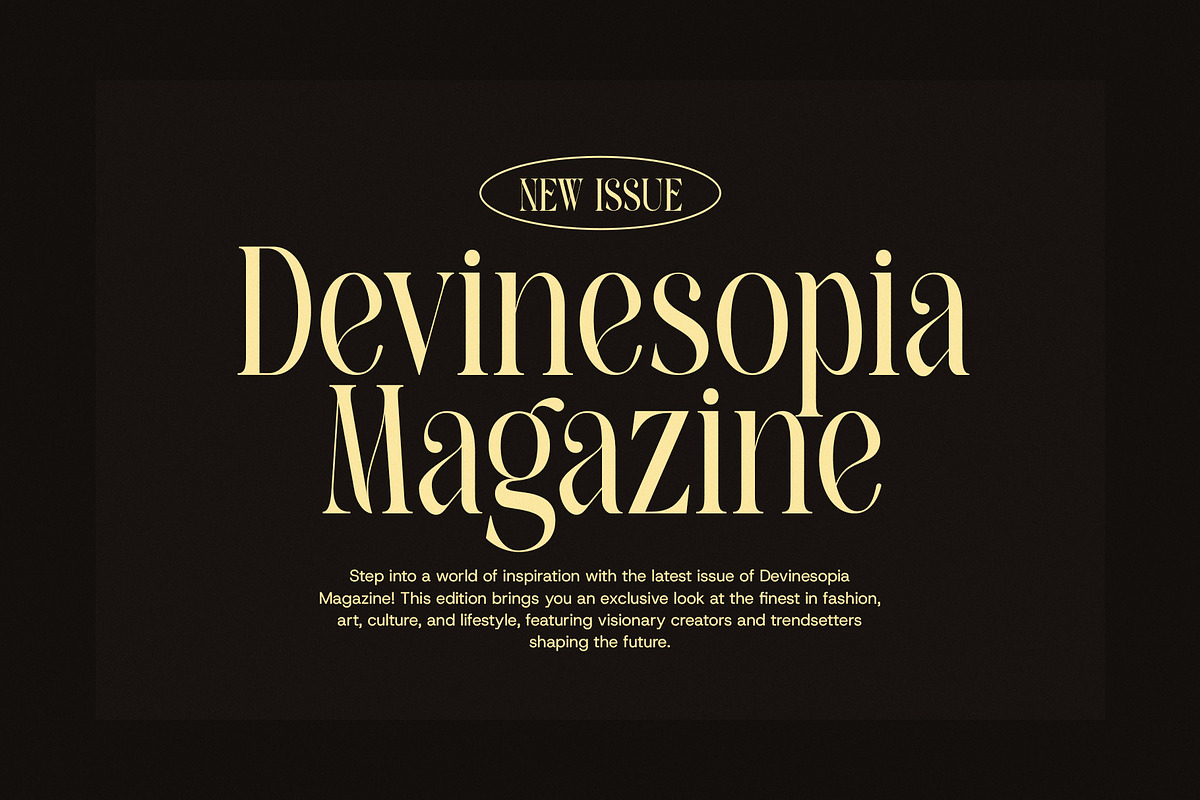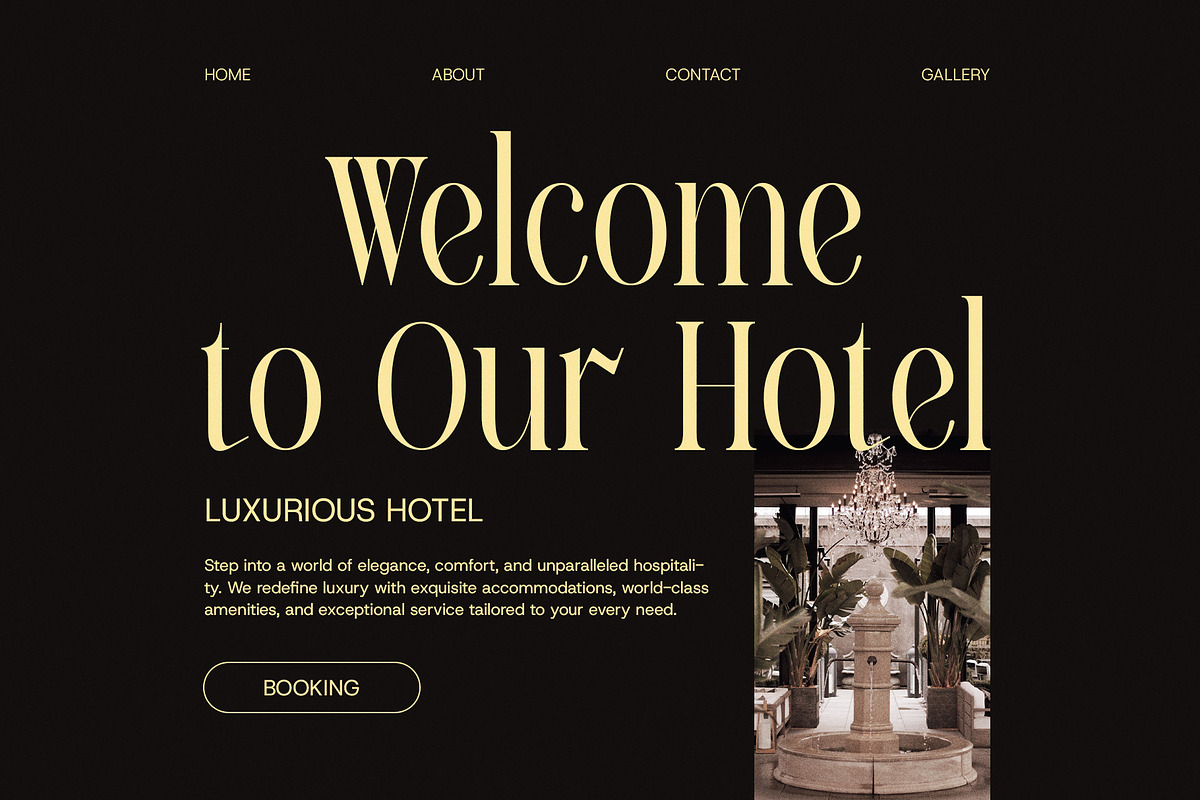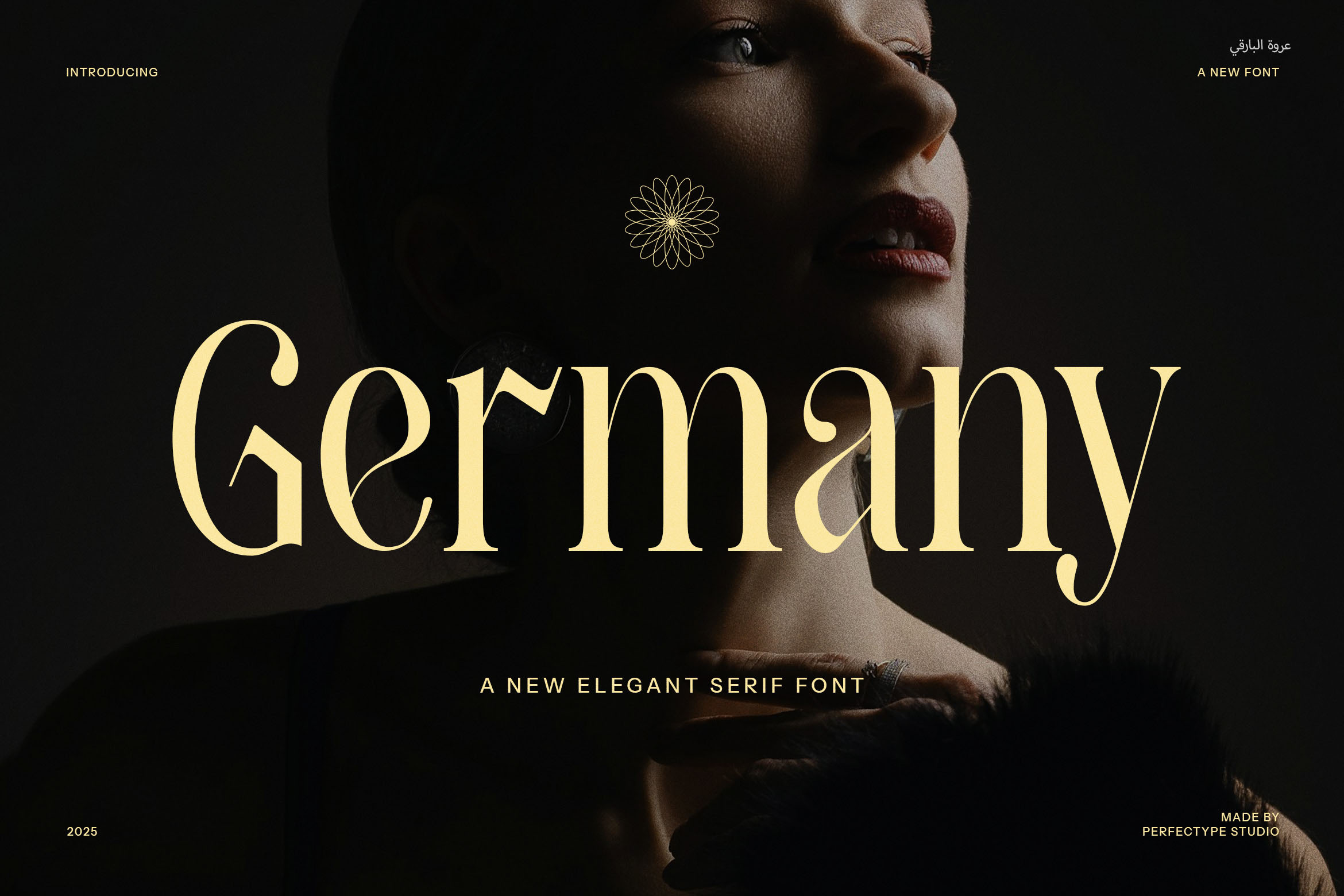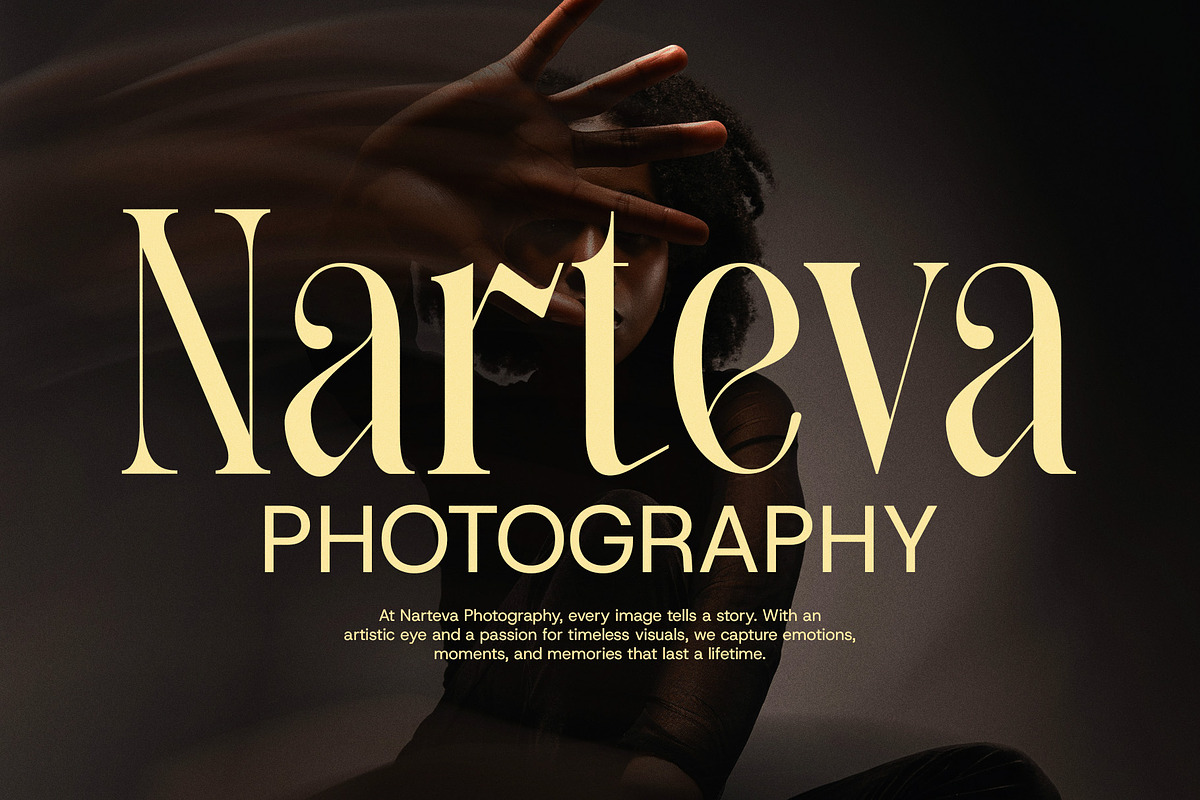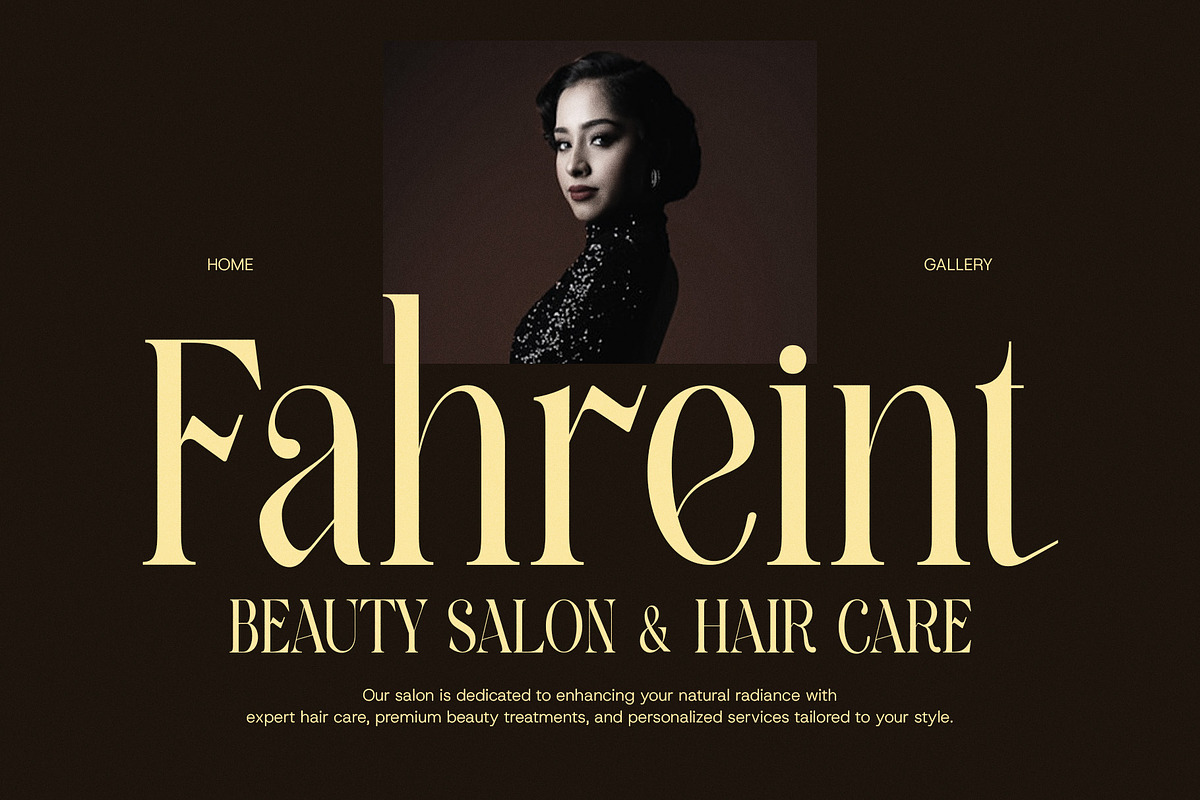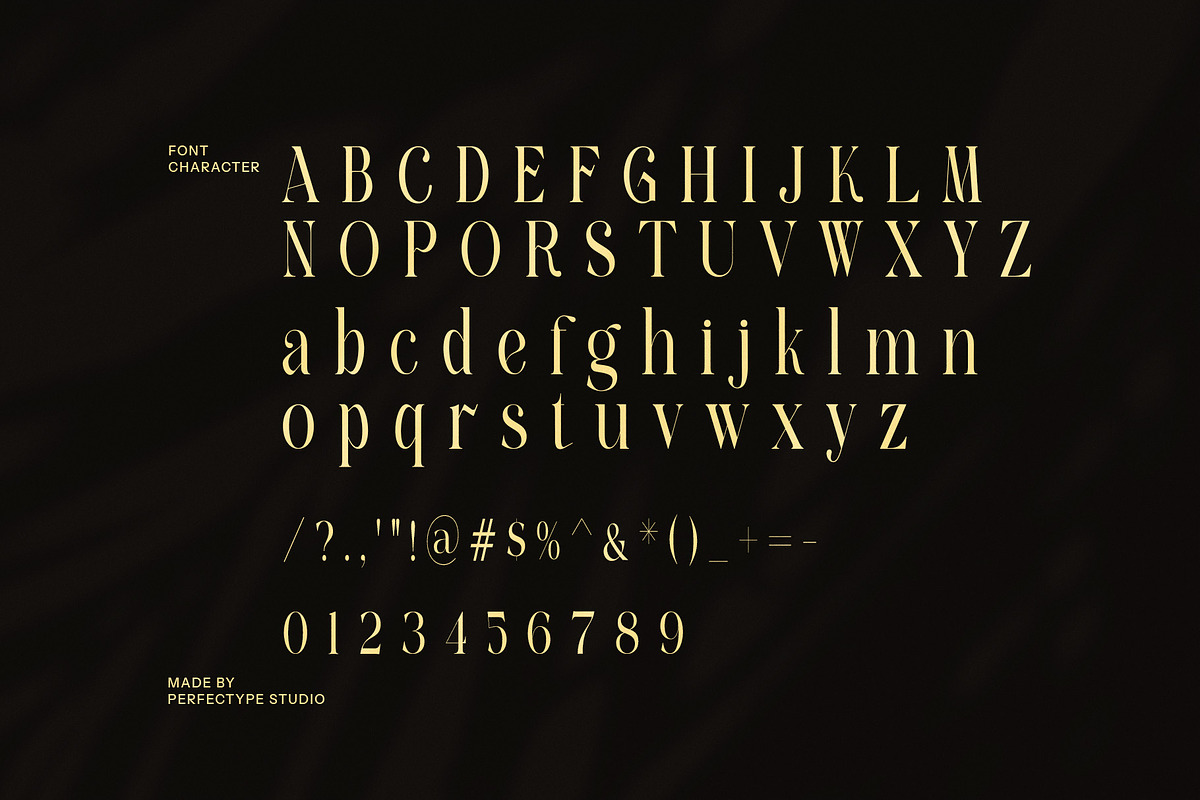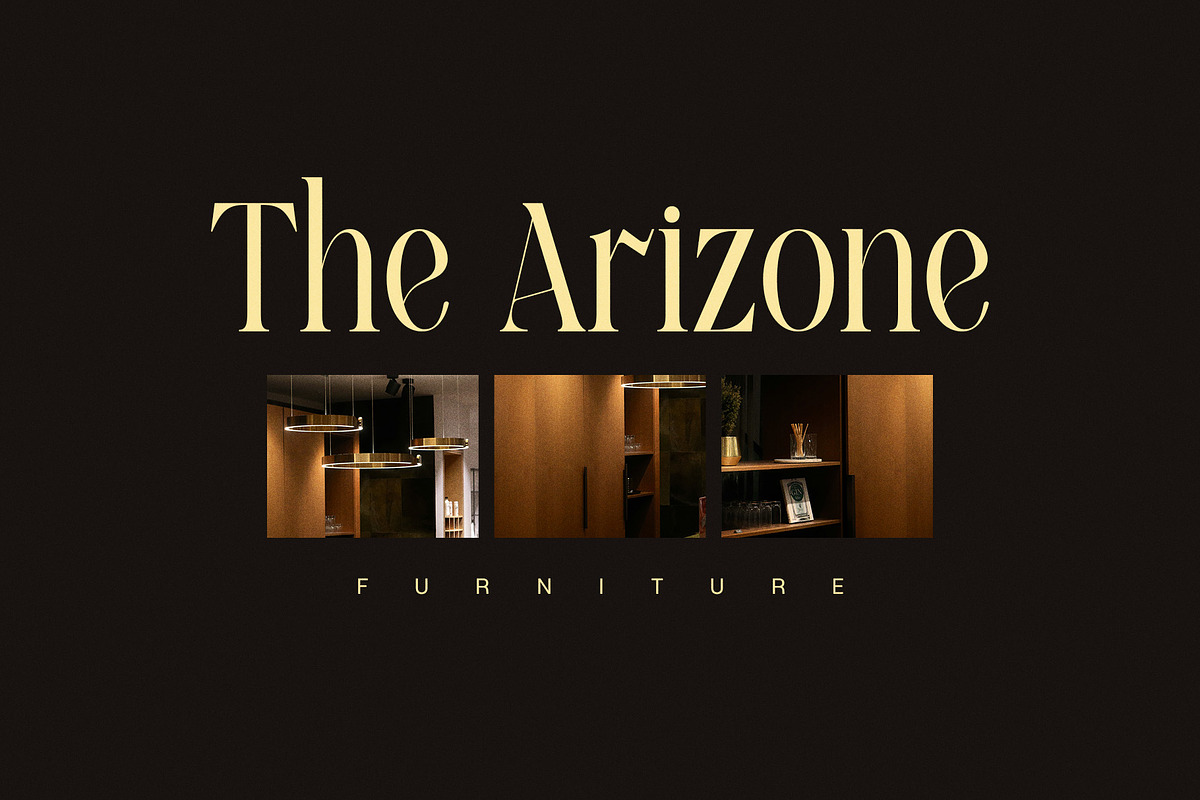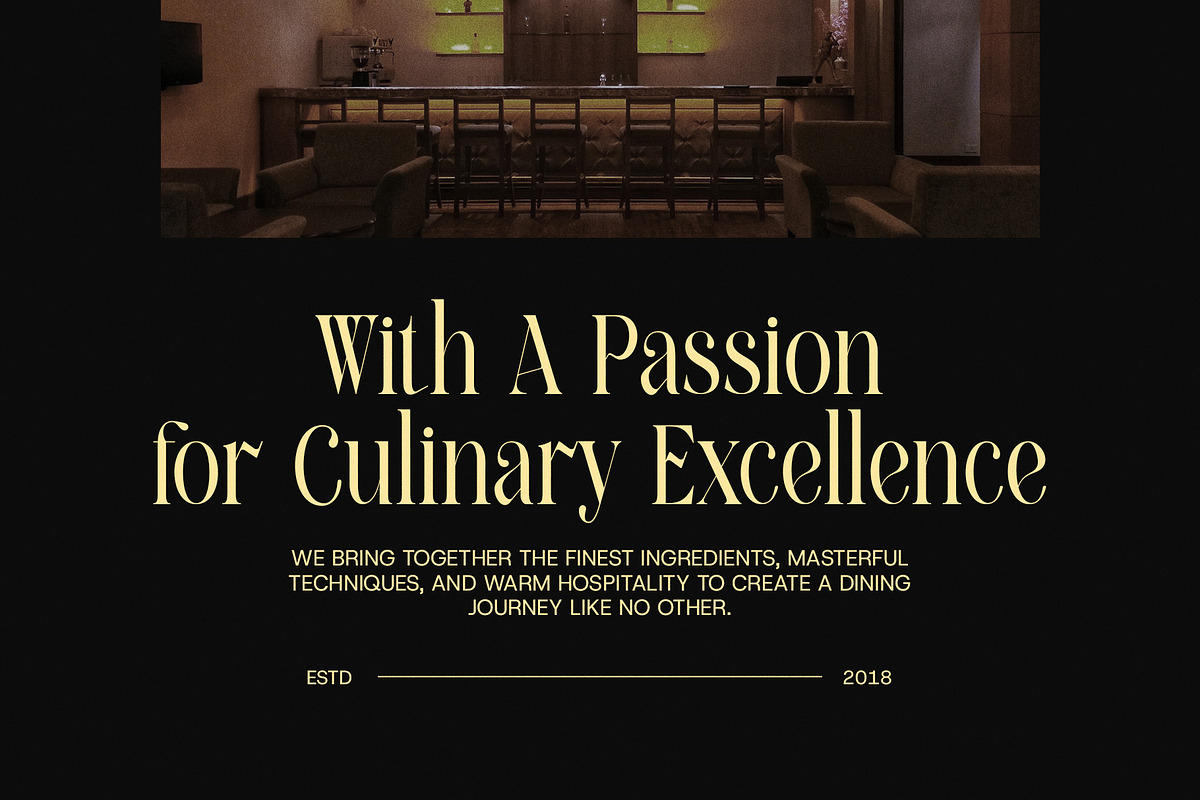
Germany Elegant Serif Font
Germany Elegant Serif Font is a stunning and contemporary serif typeface that seamlessly blends classic sophistication with modern charm. With its refined serifs and well-crafted curves, this font is the perfect choice for creating high-end designs that demand attention. Its elegant structure and unique ligatures bring a sense of character and style to any project, offering a premium look without compromising readability.
Ideal for luxury brands, upscale websites, and premium product packaging, Germany Elegant Serif Font stands out in every design setting. Whether used for bold logos, stylish magazine layouts, or sophisticated advertisements, it adds an air of refinement and elegance. The carefully designed alternates and ligatures provide additional customization, ensuring your text feels distinctive and original.
From boutique branding to food packaging, real estate advertisements, or fashion marketing, this versatile typeface works beautifully across various industries. Germany Elegant Serif is perfect for projects that require a balance of beauty and professionalism, making it a great choice for both print and digital applications.
Designed with versatility in mind, this font is ideal for creating impactful headlines, stylish invitations, and eye-catching promotional material. Its graceful yet modern design is built to enhance visual identity while maintaining a sense of luxury and sophistication. With Germany Elegant Serif Font, you can effortlessly elevate your designs to the next level, infusing them with timeless elegance and contemporary appeal.